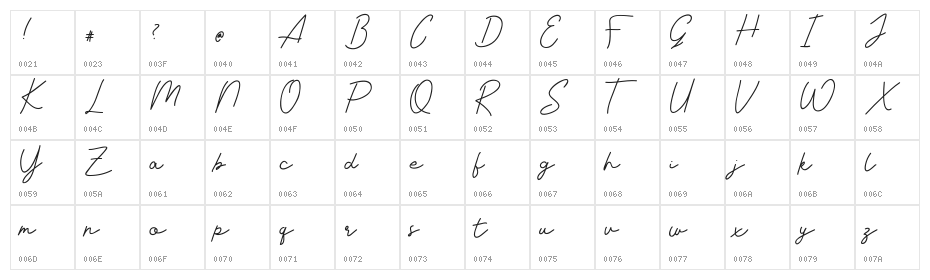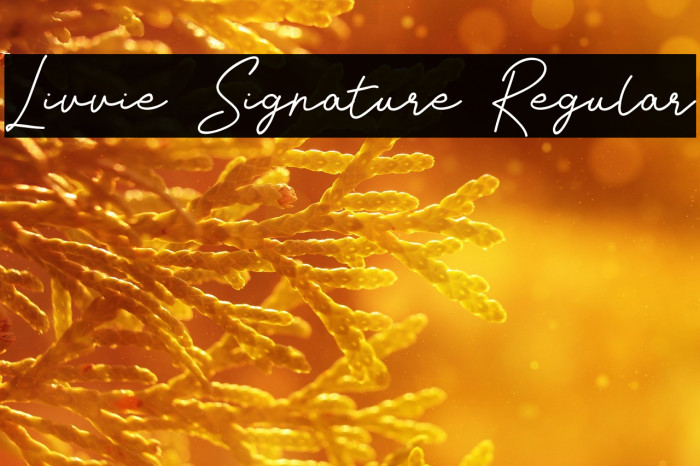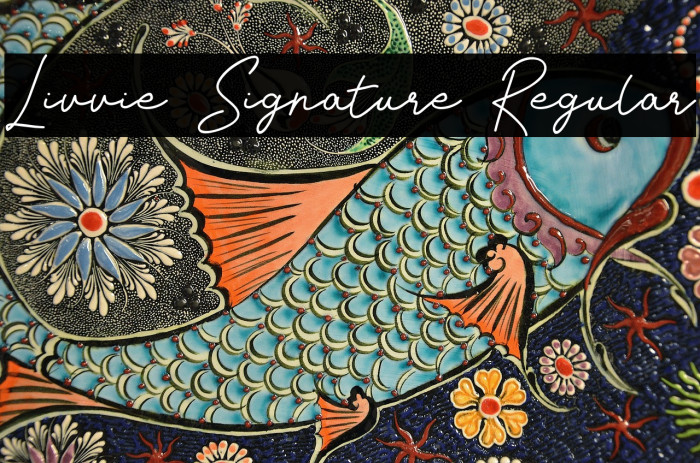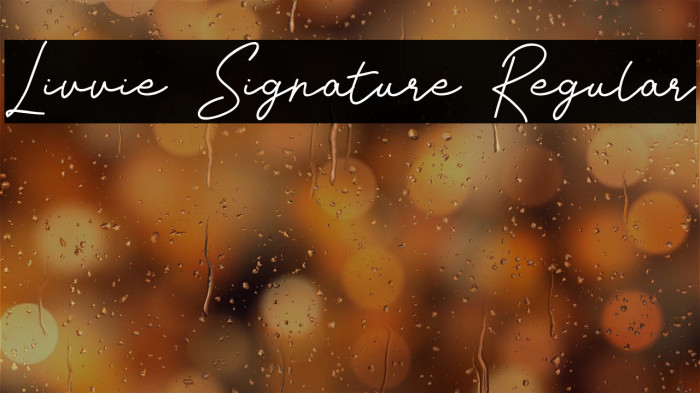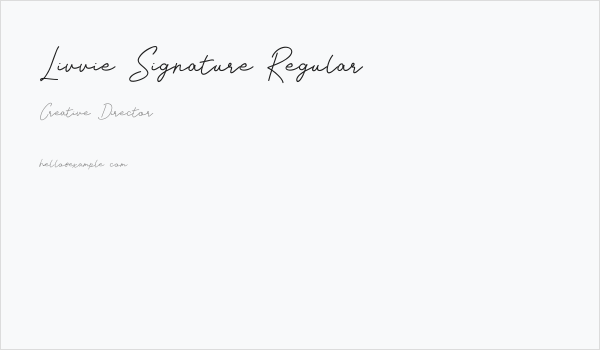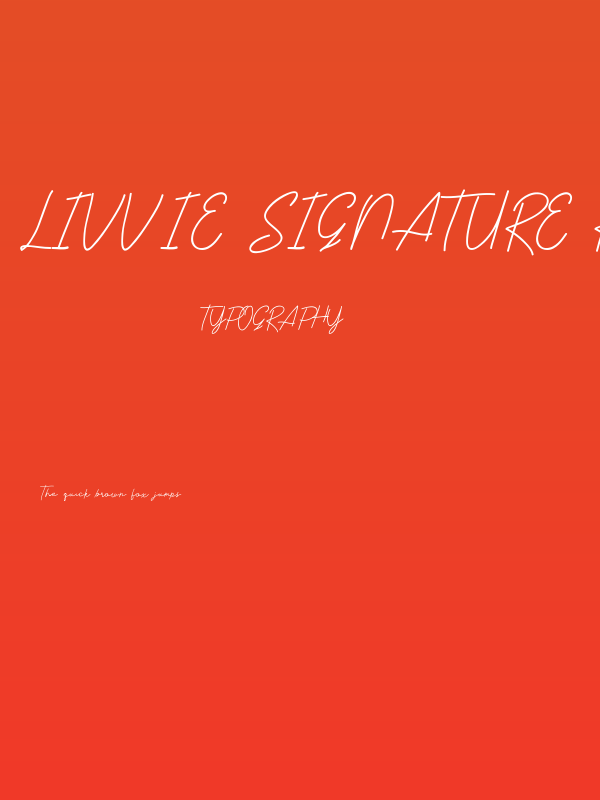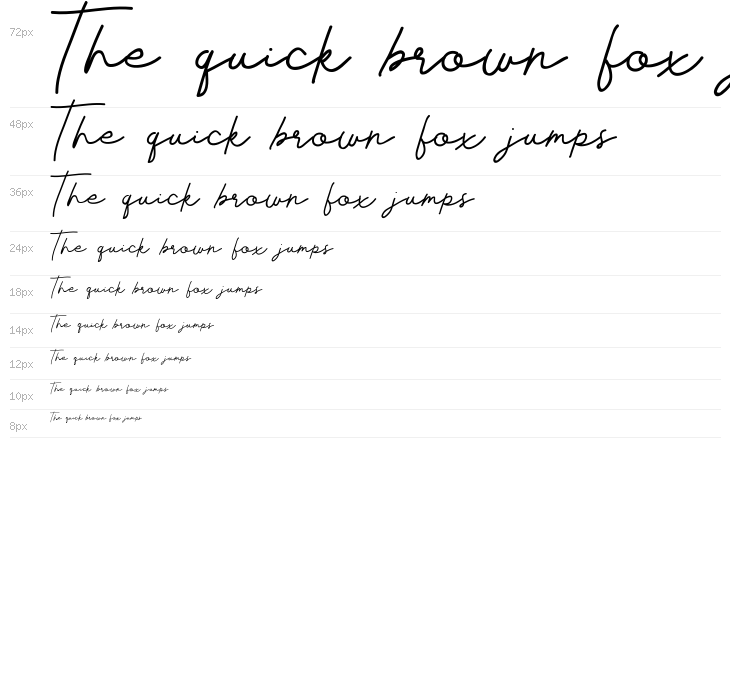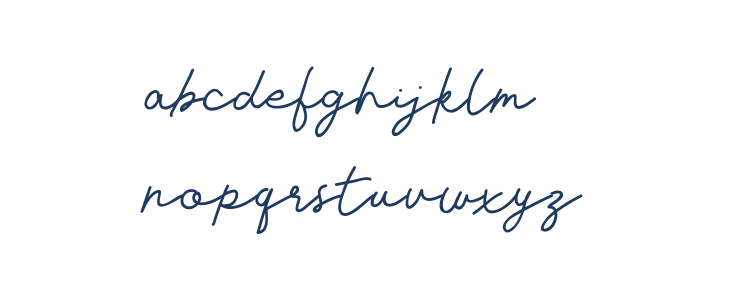
Livvie Signature Regular Font
Livvie Signature Regular Description
This font features a fluid, cursive style that mimics the natural flow of handwriting. The letters are elegantly connected, giving it a personal and intimate feel. The strokes are smooth and consistent, with a slight slant that enhances its handwritten appearance. The uppercase letters are distinct and slightly larger, providing a nice contrast with the lowercase letters. The font maintains a clean and sophisticated look, making it suitable for various design applications. Its overall aesthetic is both modern and classic, offering versatility in its use.
| Proposed Projects | Ideal for personal branding, invitations, greeting cards, and social media graphics. |